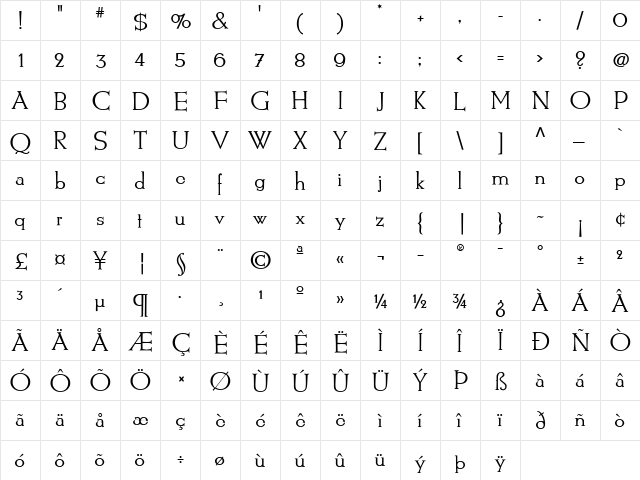
MetropolisSG Regular
Design Context for MetropolisSG Typeface
MetropolisSG offers clean, dependable letterforms without strong stylistic allegiance, making it a practical choice for designers who need flexibility.
Pro Tip: Pair MetropolisSG with a font of contrasting weight or personality to build a more expressive typographic hierarchy.